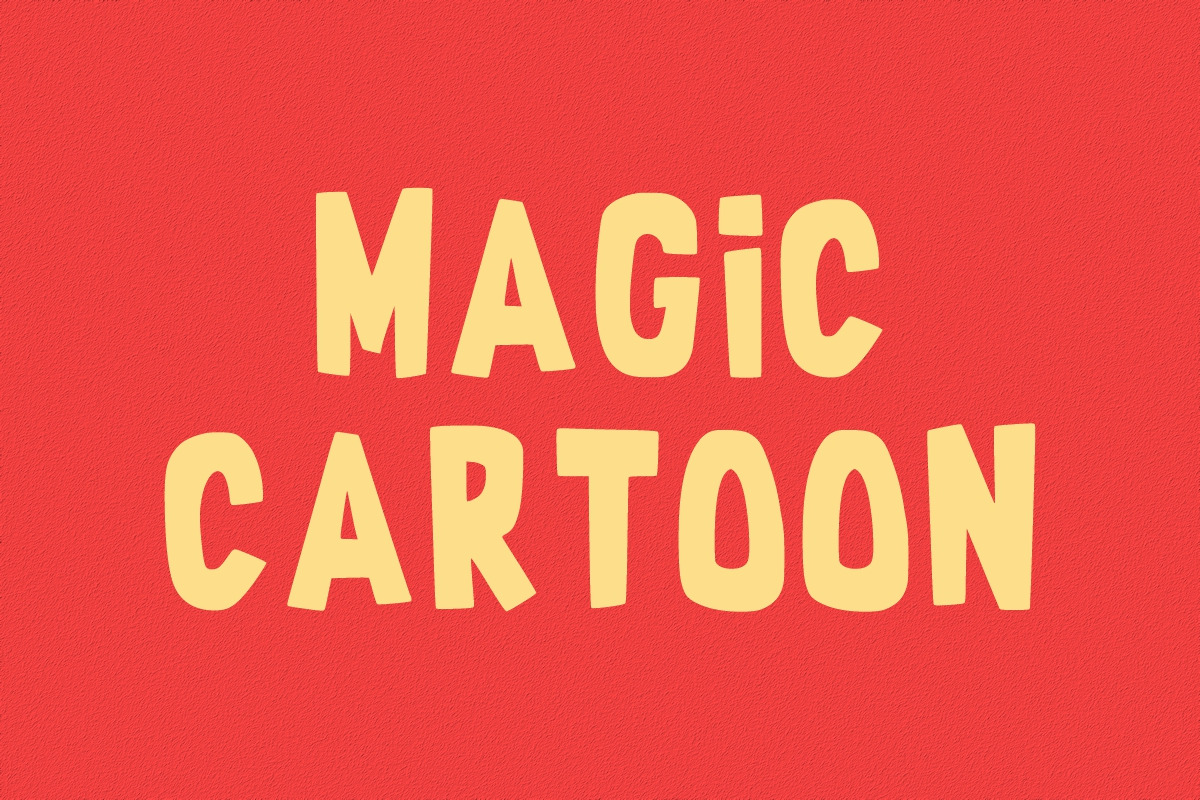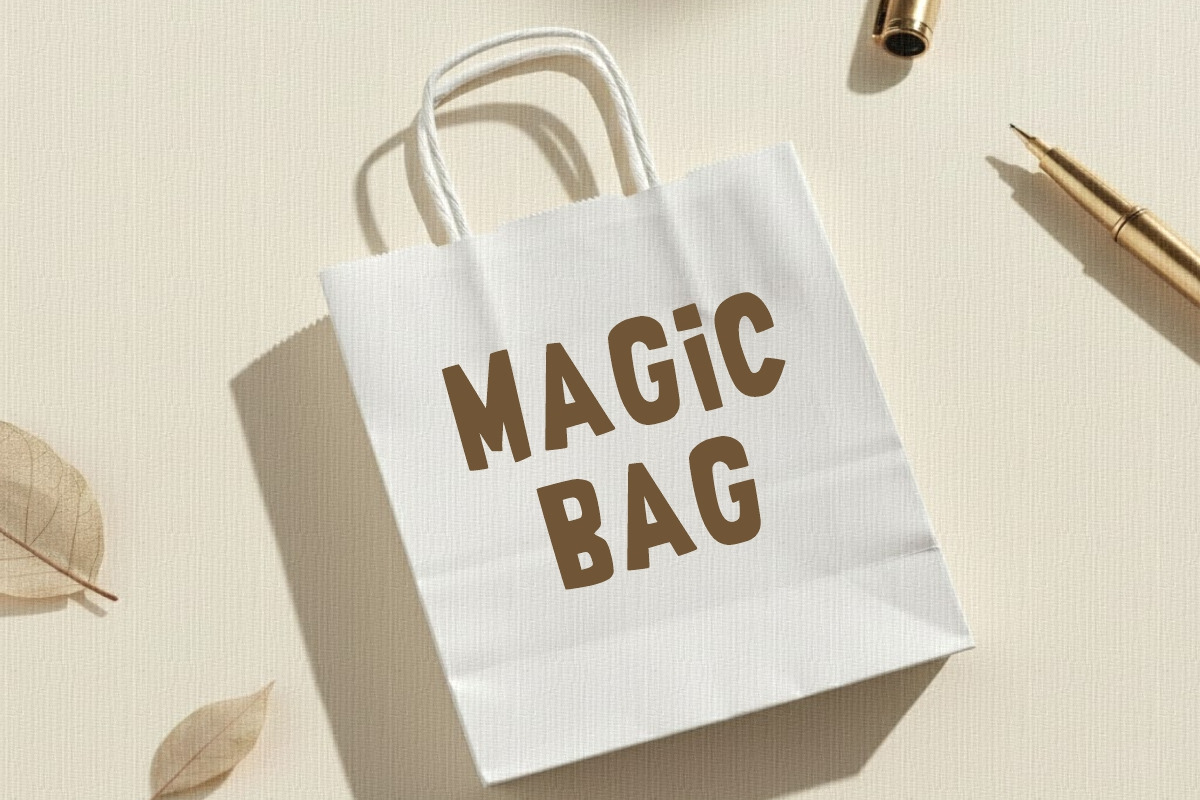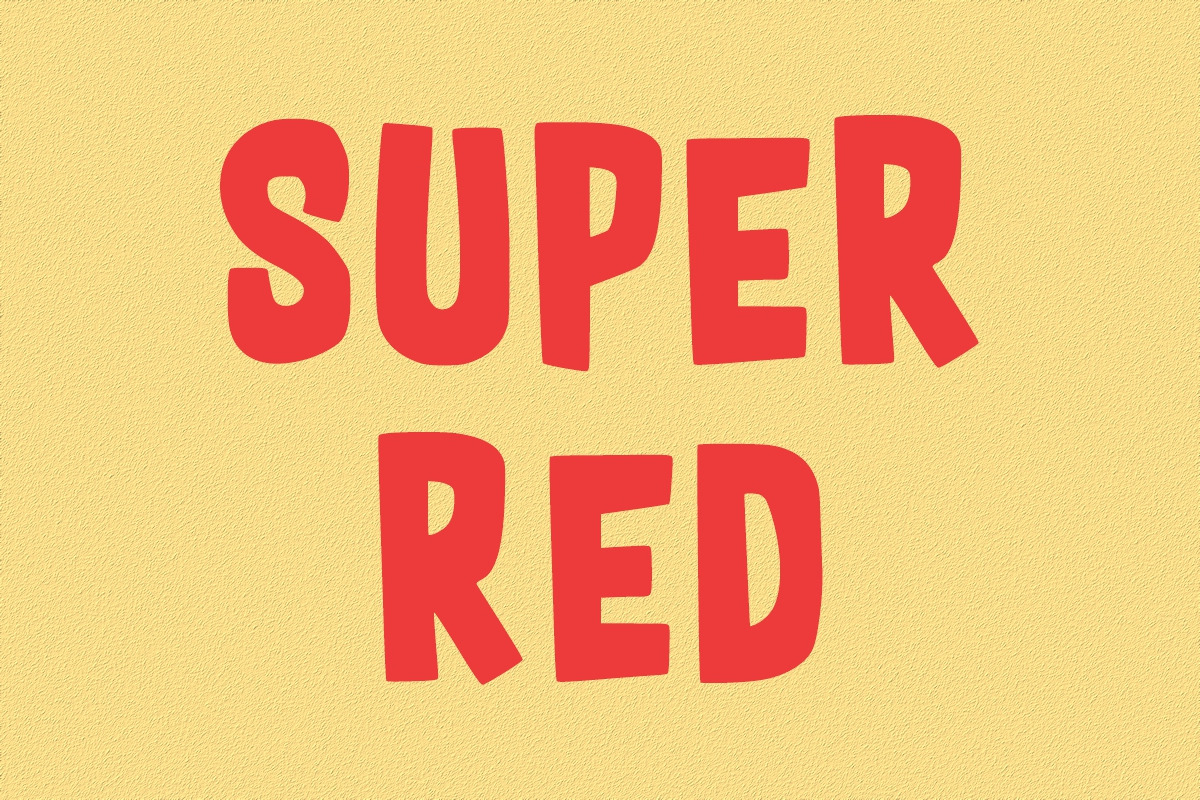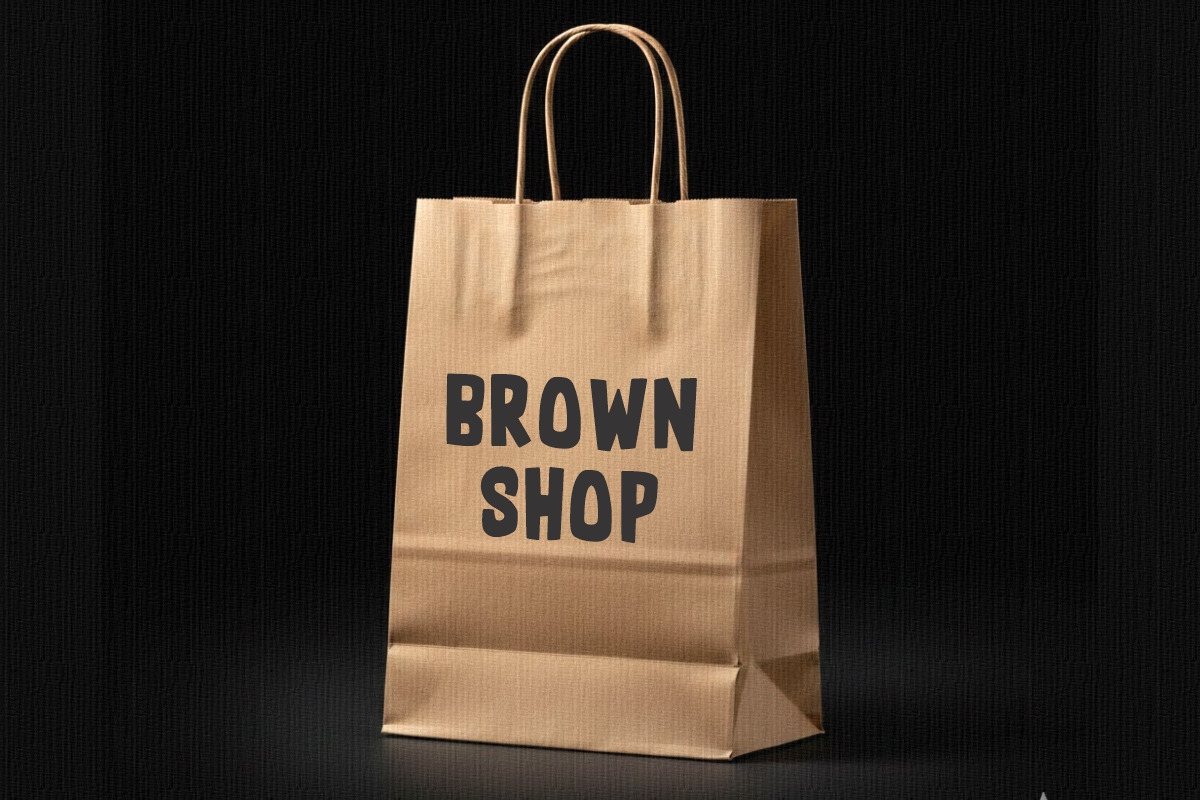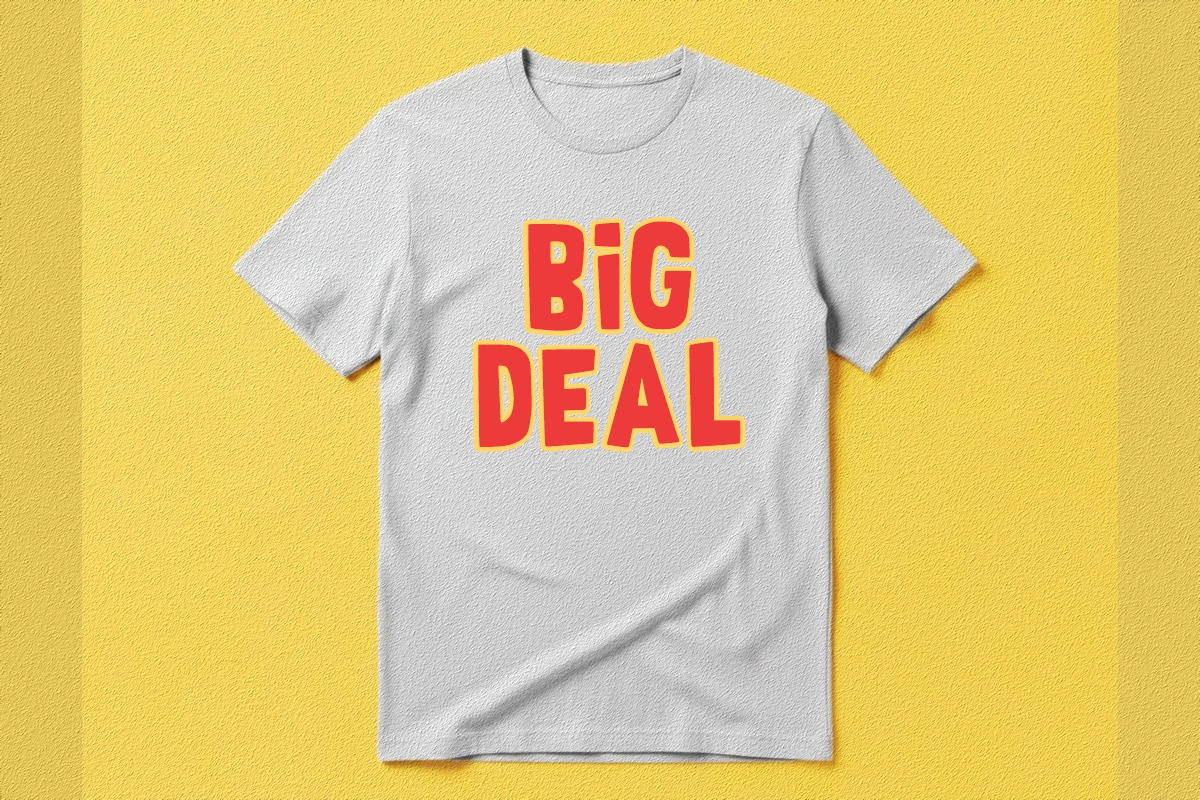
Sponge Crunch
Sponge Crunch is a cartoon and friendly font that conveys impeccable joy.
Super Bounce is a bold and bubbly cartoon-style display font designed to bring fun, joy, and energy to your creative projects. With its chunky, hand-crafted letterforms and quirky, irregular shapes, this font feels like it’s bouncing off the page — perfect for kid-friendly designs and playful branding.
This display font stands out beautifully in big sizes and pairs perfectly with vibrant color palettes and fun illustrations.